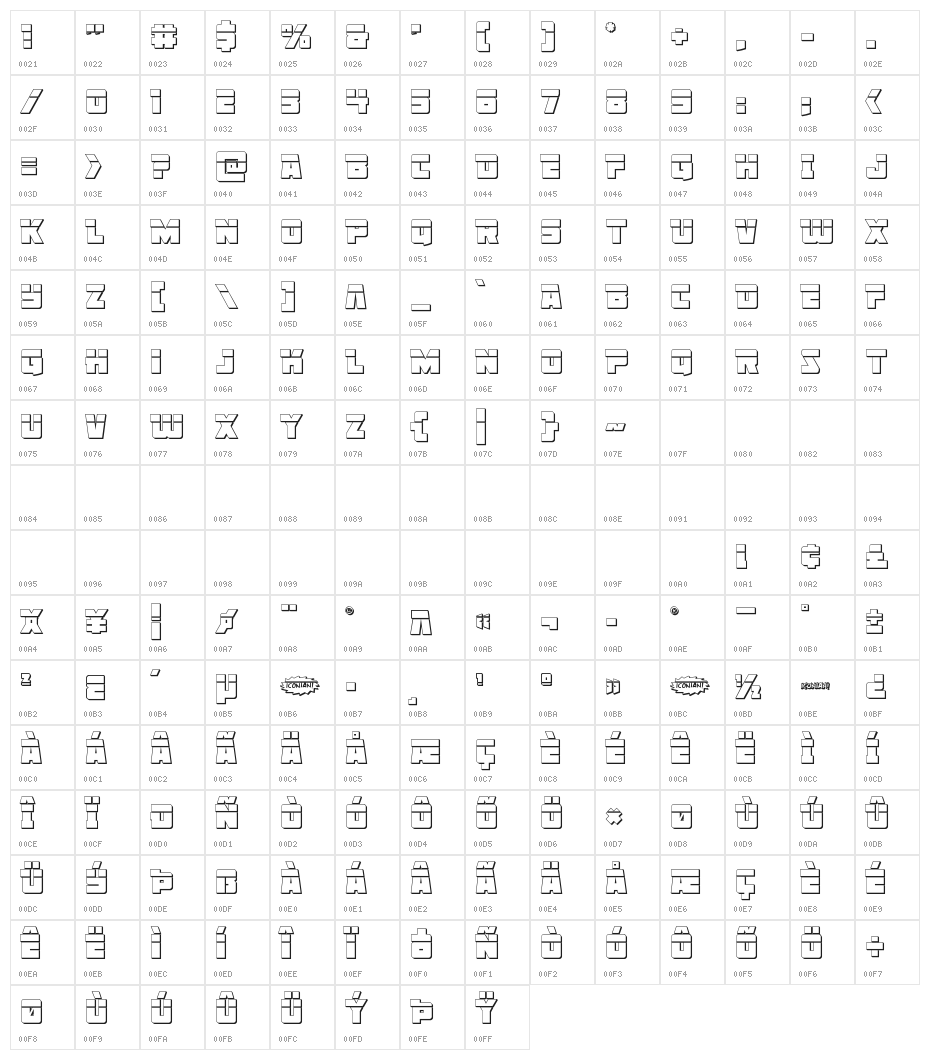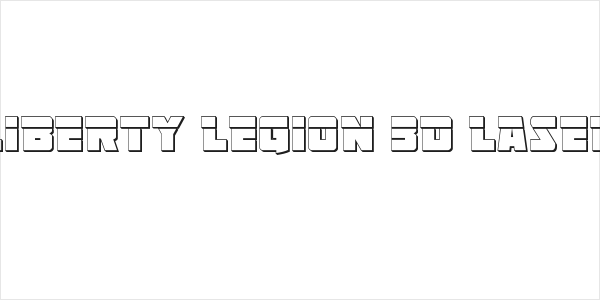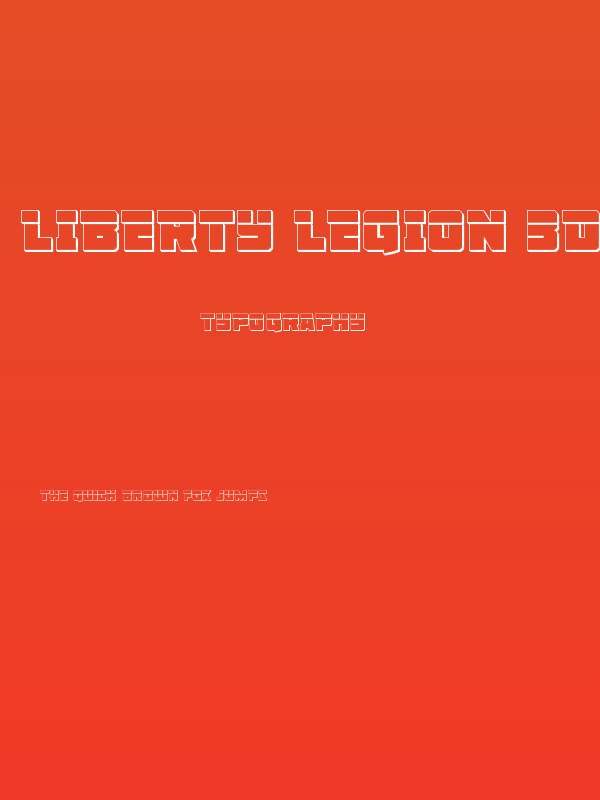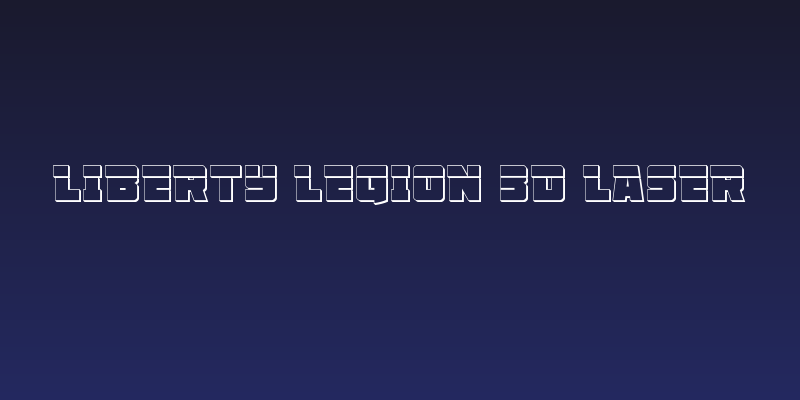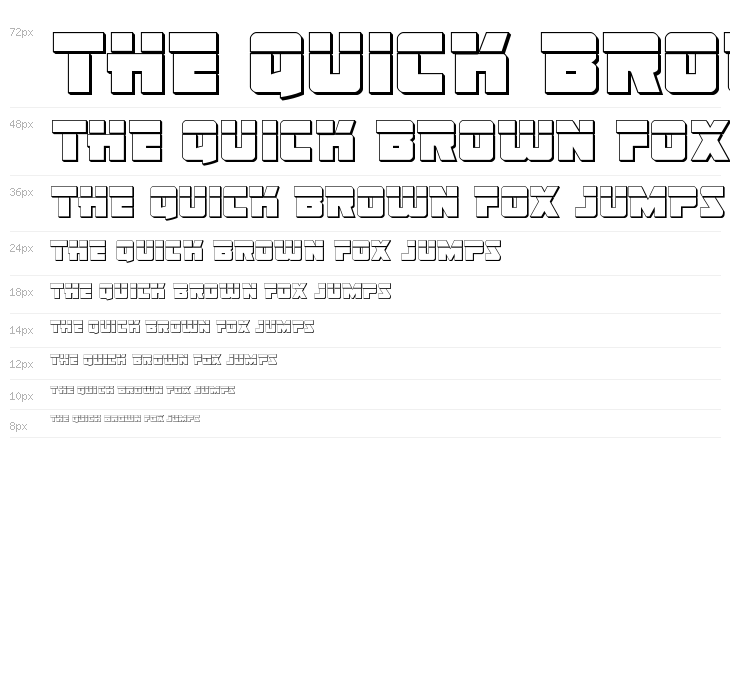
Liberty Legion 3D Laser Font
Liberty Legion 3D Laser Description
This font features a bold, three-dimensional style with a modern, futuristic aesthetic. The characters are blocky and geometric, with a distinct outline that gives them a laser-cut appearance. The uppercase letters are uniform in height, while the numbers and special characters maintain the same bold, outlined style. The font's design is eye-catching and ideal for projects that require a strong visual impact. Its unique 3D effect makes it suitable for digital and print media where a standout headline or title is needed.
| Proposed Projects | Ideal for video game titles, sci-fi movie posters, tech event branding, and futuristic-themed designs. |